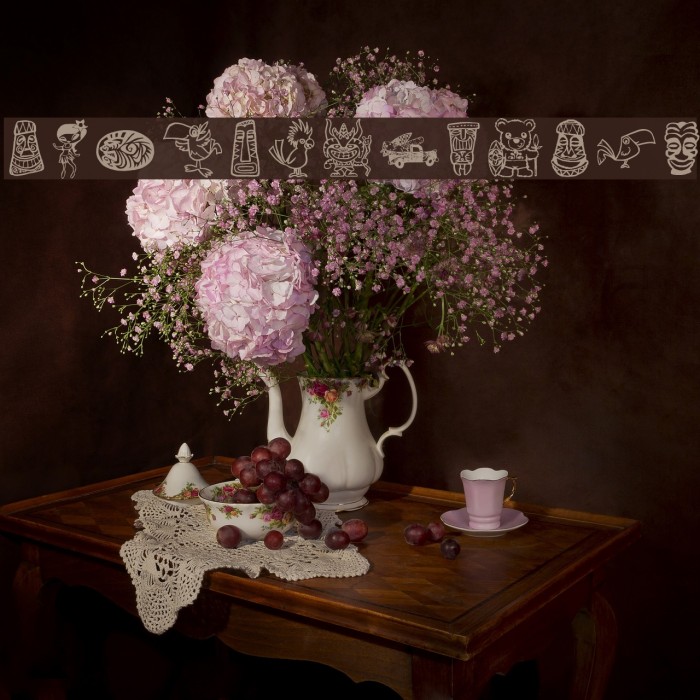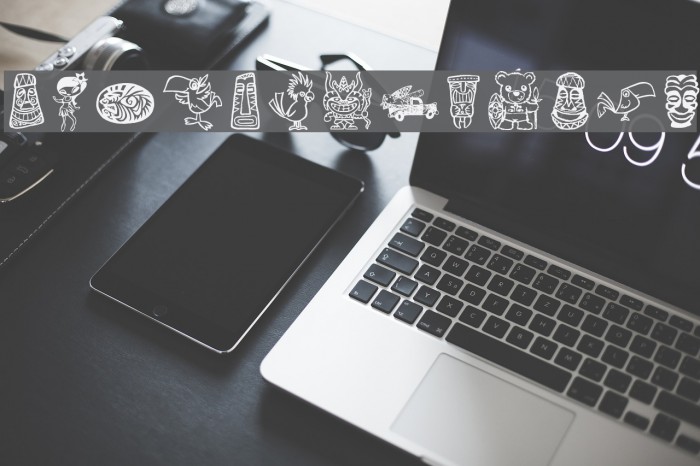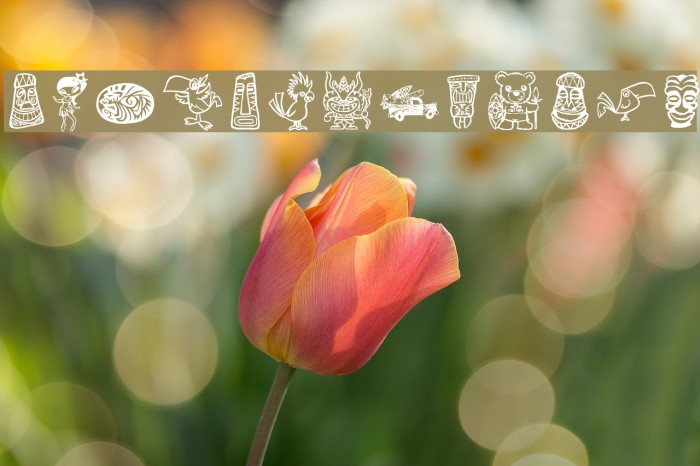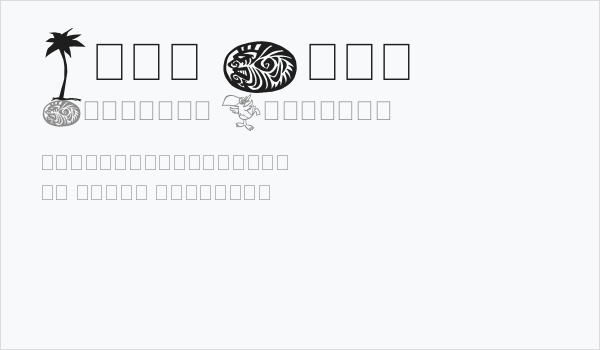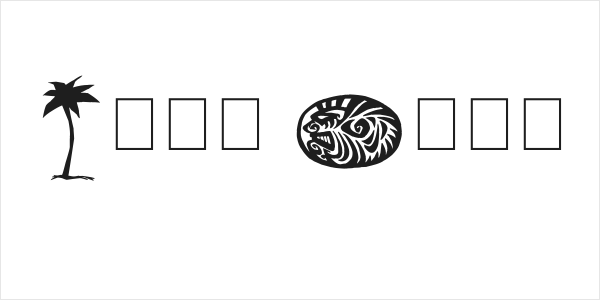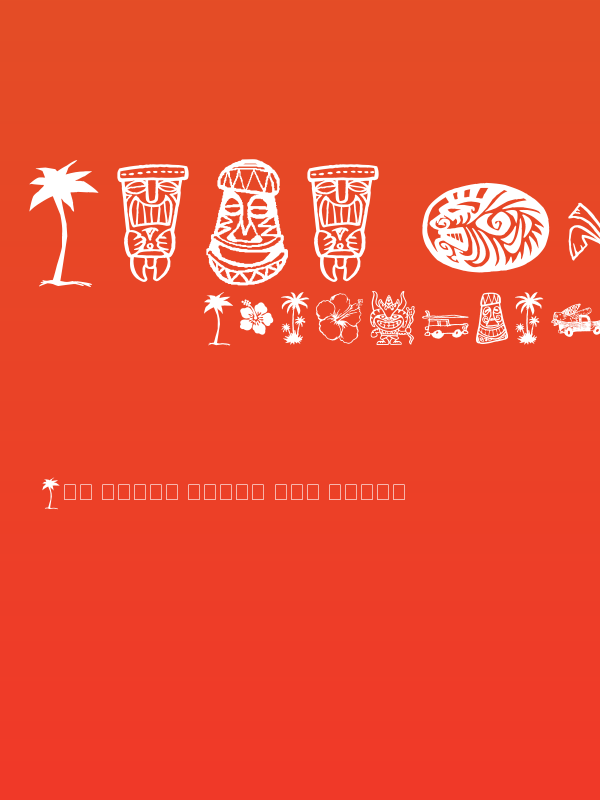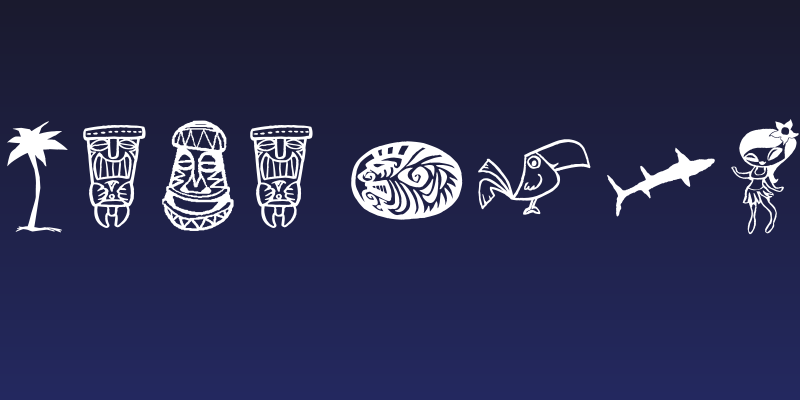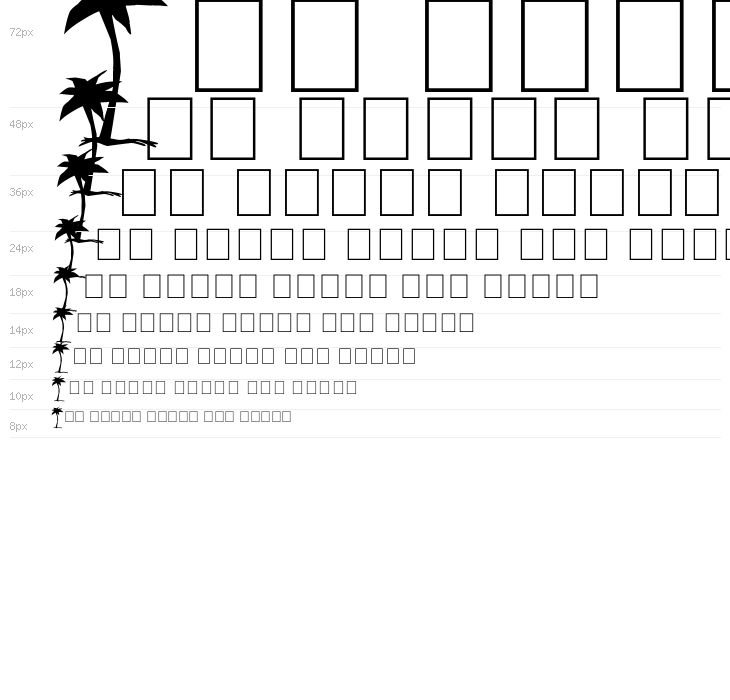
Tiki Club Font
Tiki Club Description
A decorative dingbat set featuring playful, tropical-themed illustrations such as tiki statues, palm trees, surfboards, flowers, and island motifs. Each character is represented by a unique pictogram rather than traditional letterforms.
| Overall Style | Decorative, Playful, Thematic |
| Use Case | Decorative elements, Icons, Themed graphics |
| Proposed Projects | Party invitations, event flyers, themed posters, scrapbooking, digital stickers, summer or beach-related branding. |